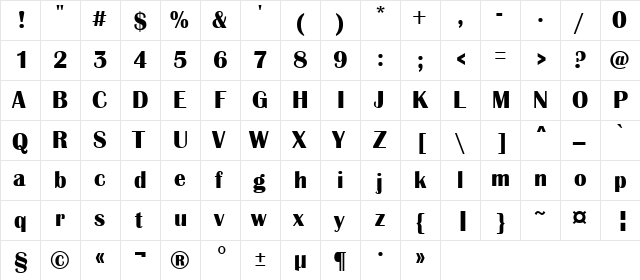
a_Albionic Bold
Design Context for a_Albionic Typeface
a_Albionic is a composed and adaptable typeface that performs quietly and consistently across a wide range of design contexts. Its bold stroke weight gives it real presence on the page.